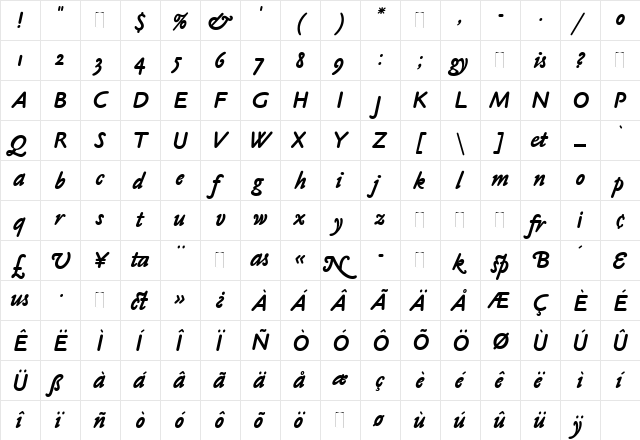
Claude Sans Bold Italic Regular Font Preview
Design Context for Claude Sans Bold Italic Typeface
Claude Sans Bold Italic takes a measured approach to typography — its balanced proportions and neutral character make it a reliable workhorse for both digital and print work. Its italic angle brings a sense of urgency and motion to the letterforms. Its bold stroke weight gives it real presence on the page.